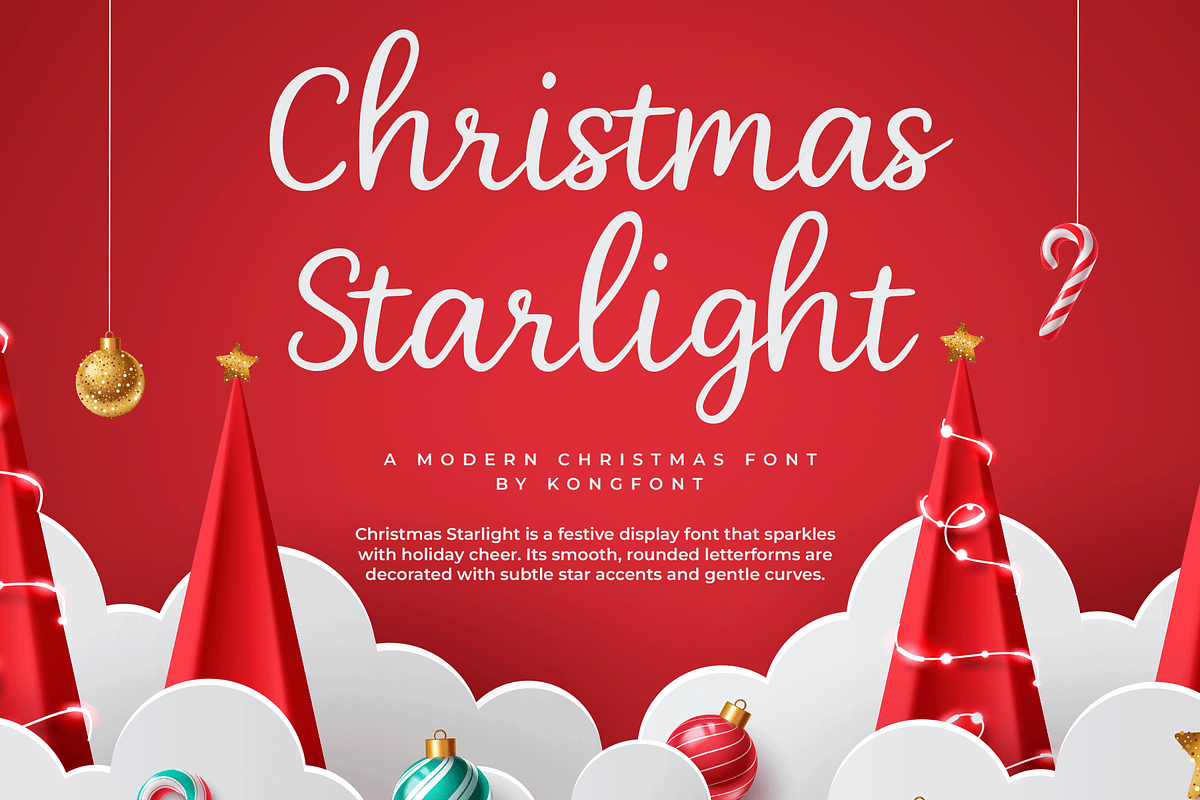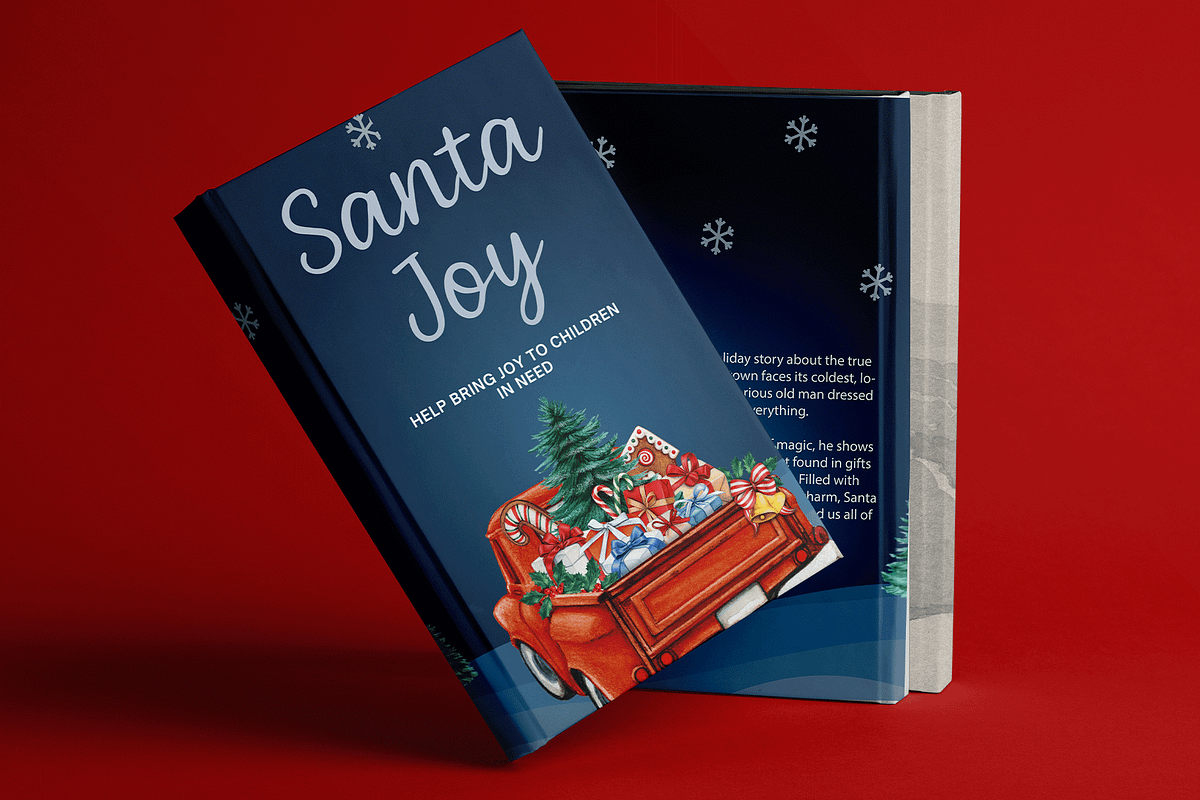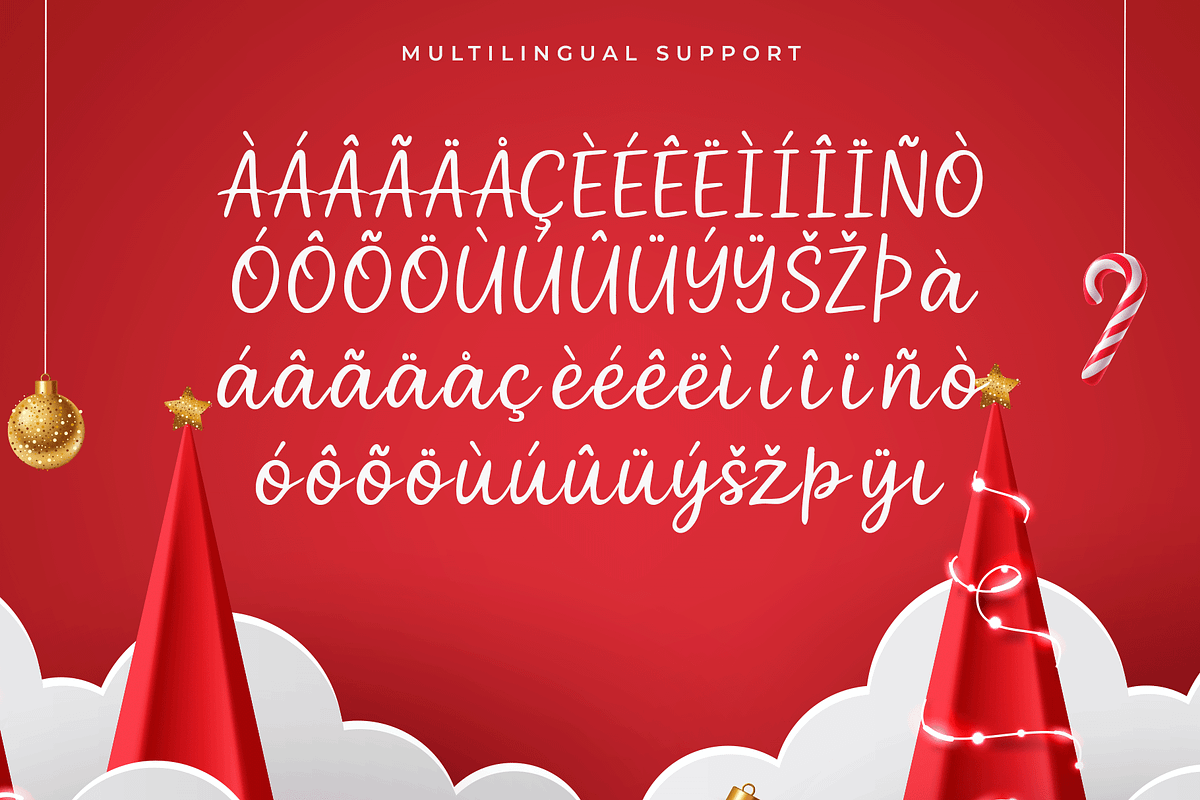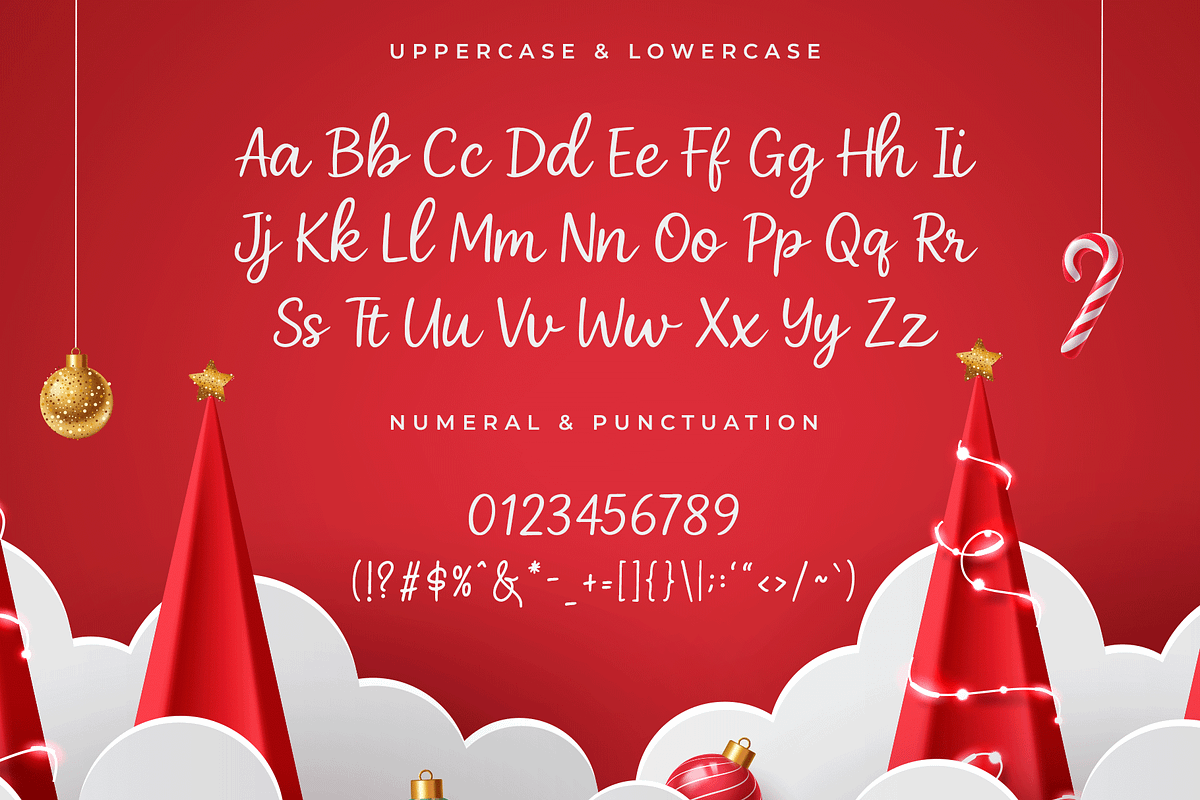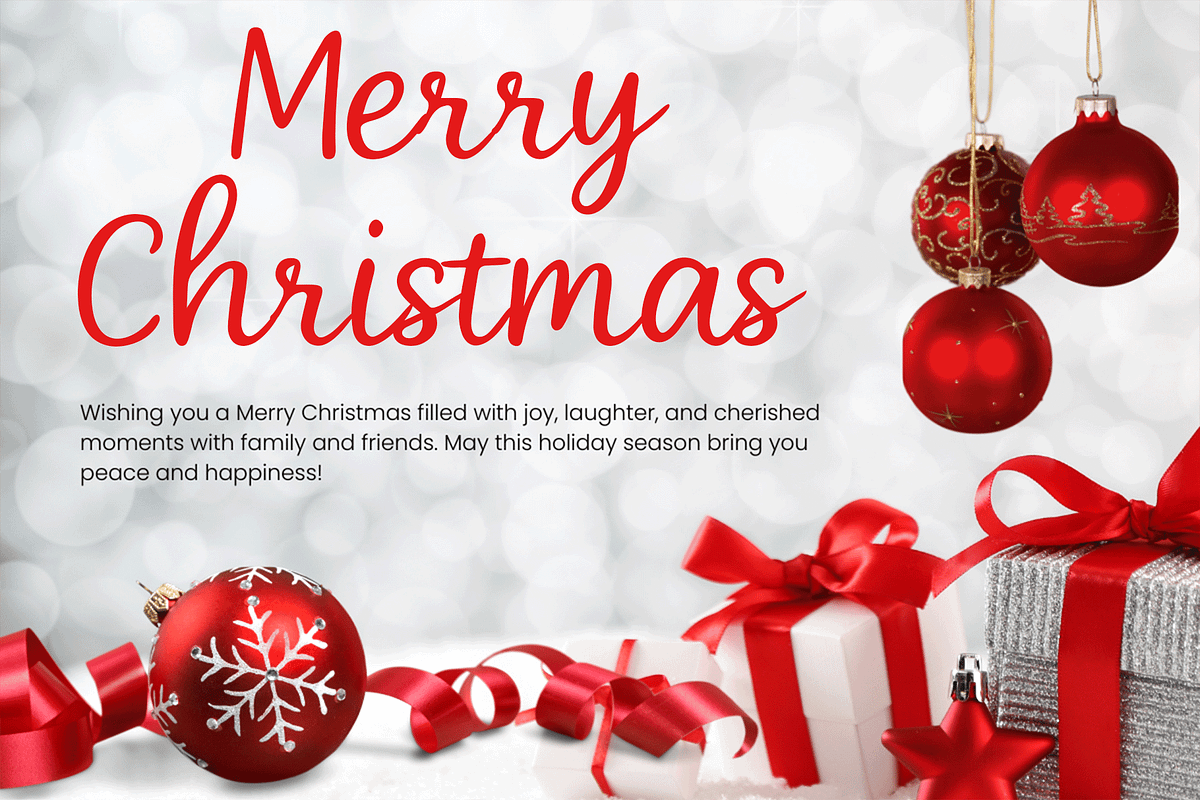
Christmas Starlight–Modern Christmas
Christmas Starlight – Modern Christmas Font
Christmas Starlight is a modern Christmas font that captures the magic and sparkle of the holiday season. With its stylish and festive design, this typeface is perfect for creating joyful and enchanting holiday projects.
Ideal for Christmas cards, gift tags, invitations, posters, branding, packaging, and social media graphics, Christmas Starlight brings a warm and festive glow to your creative work. Its versatile style makes it suitable for both playful and elegant seasonal designs.
The font includes uppercase, lowercase, numbers, punctuation, and multilingual support, giving you everything you need to craft beautiful holiday lettering with ease.